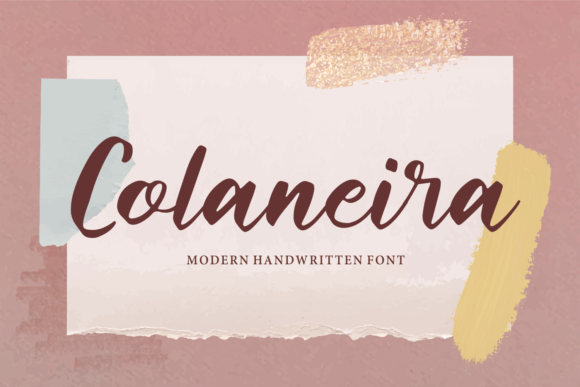
In a world adorned with digital wonders, where words dance across screens and pixels paint our realities, the Colaneira Font emerges as a captivating creation, a testament to the artistry of expression. This modern handwritten script, crafted with meticulous care by the Forberas Club, is not merely a collection of characters; it is an invitation to step into a realm of elegance, where creativity knows no bounds.
Immerse yourself in the graceful strokes of Colaneira, a font family that embodies the spirit of artistry. Its meticulously crafted curves and flourishes evoke a sense of timeless beauty, reminiscent of handwritten letters penned with love and care. Whether you're designing product packaging that demands attention, crafting a branding project that exudes sophistication, or creating social media posts that captivate audiences, Colaneira is your perfect companion.
Journey with Colaneira to the heart of the festive season, where Christmas cards come alive with warmth and cheer. Its playful yet elegant characters dance across the page, carrying messages of love, joy, and goodwill. Imagine your loved ones' faces as they receive a card adorned with Colaneira's enchanting script, a tangible reminder of your heartfelt wishes. Witness the magic unfold as Colaneira transforms ordinary greetings into extraordinary expressions of affection.
Unleash your creativity with Colaneira, the font that breathes life into words. Whether you're a seasoned designer or just starting your artistic journey, Colaneira will elevate your projects with its versatility and charm. Its effortless flow and natural aesthetic lend themselves seamlessly to a myriad of applications, from wedding invitations that radiate romance to magazine layouts that exude sophistication.
With Colaneira as your creative ally, you'll discover a font that goes beyond mere functionality. It's an extension of your imagination, a tool that empowers you to express your unique vision with confidence and flair. Embrace the world of Colaneira, where words become art, and your creativity knows no limits.